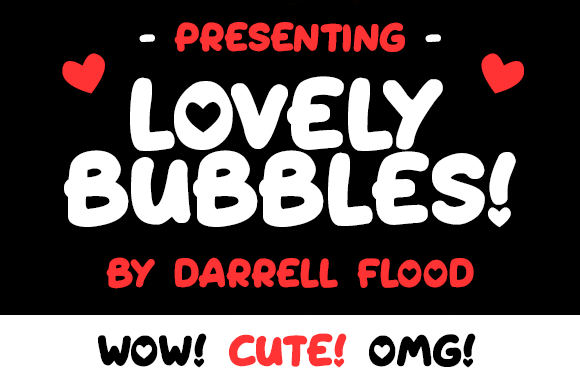
Introduction to Lovely Bubbles Font
A playful, bubbly font in a rounded, cartoon style.
Perfect for Valentineโs cards, comics use, and general family-friendly fun .
Key Features of Lovely Bubbles Font